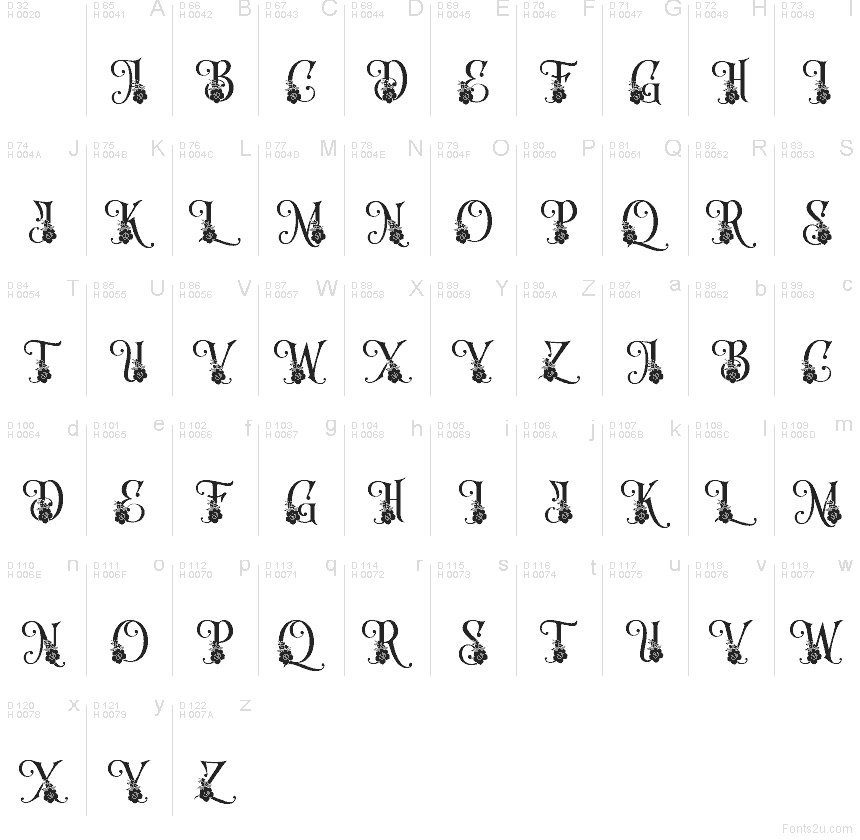
Stone Crusher font by Typeface by Kong Font is a free decorative display font with curled serif shapes and floral clusters woven into the letterforms. The letters mix smooth strokes with ornate loops, giving the design a carved, ornamental rhythm that feels tied to vintage embellishment rather than plain text.
Stone Crusher works well for invitations, logo marks, poster titles, packaging, and editorial accents where the floral detailing can sit at the center of the layout. This free font also suits wedding stationery, boutique branding, labels, and decorative headers because its built-in ornamentation gives each word a finished, framed feel.